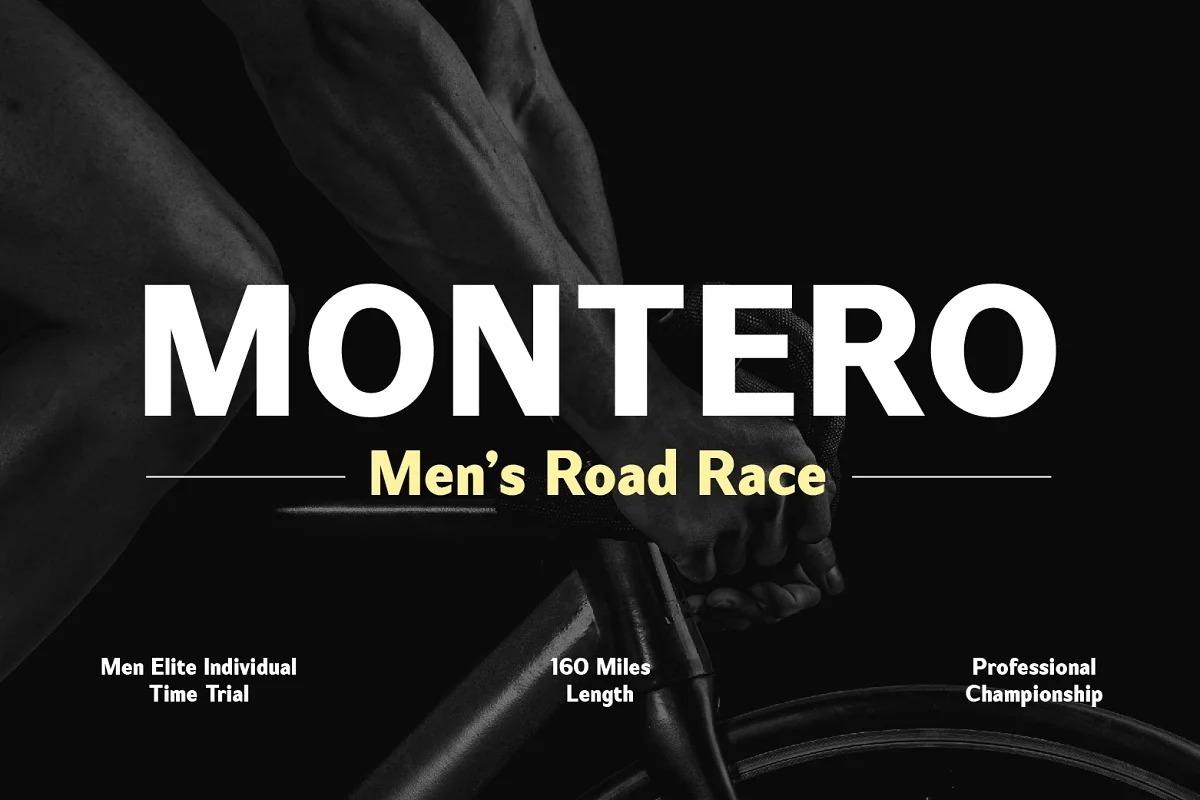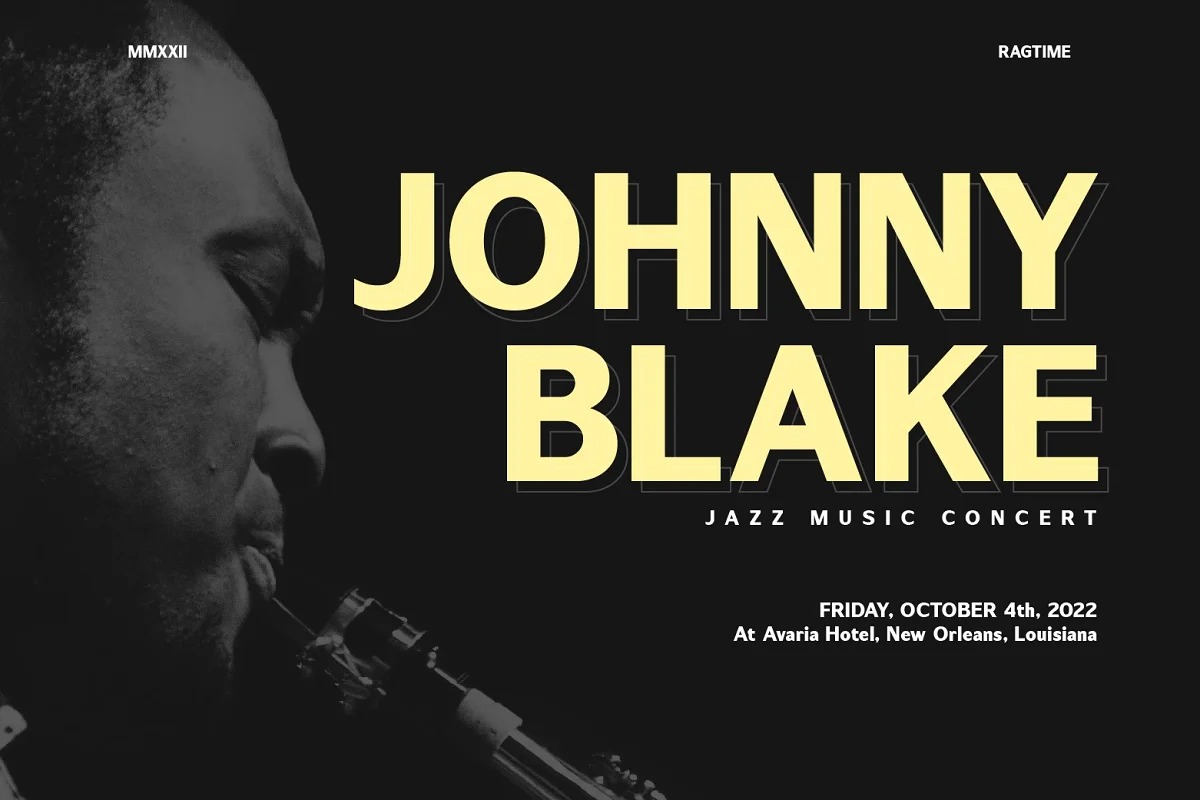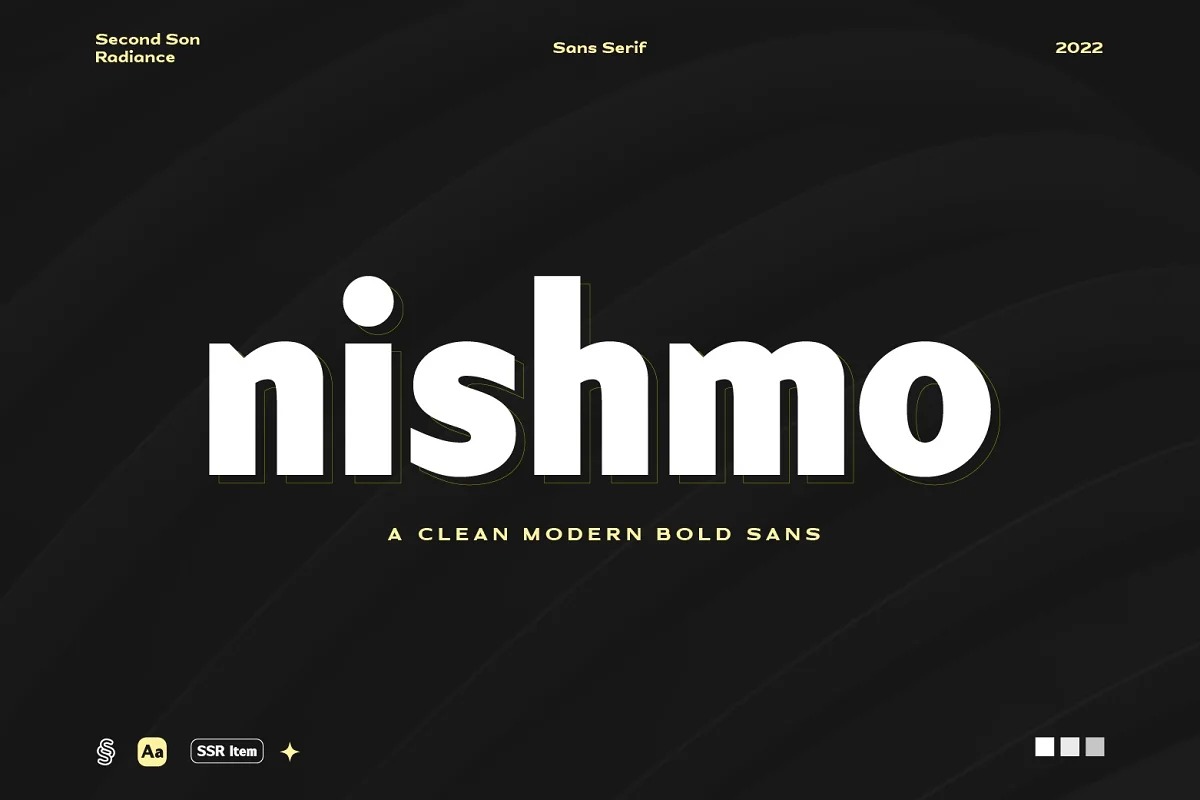
Nishmo Sans Serif Font is a modern sans serif headline typeface inspired by some classic geometric typefaces that keep the minimalism at it’s level best. Nishmo is perfect for your up coming projects. Such as logo branding, editorial design, stationery design, esport design, 80s retro design, game industry, sport racing, techno / gadget brand, digital music poster, apps startup design, modern advertising design, art quote, home decor, book/cover title, special events and any more.